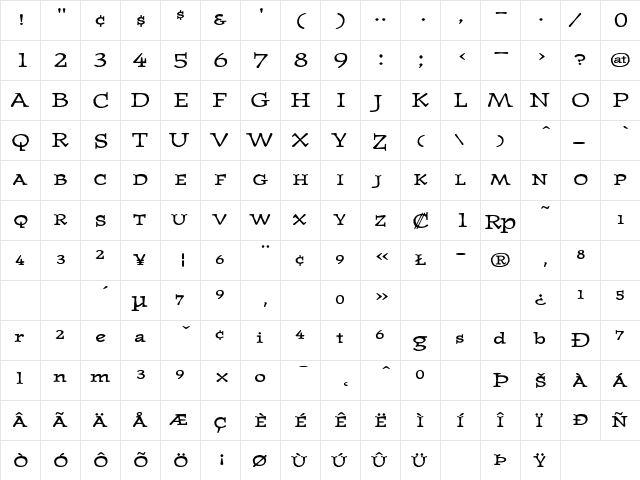
JournalUltraSmallcaps Regular
Design Context for JournalUltraSmallcaps Typeface
JournalUltraSmallcaps takes a measured approach to typography — its balanced proportions and neutral character make it a reliable workhorse for both digital and print work.